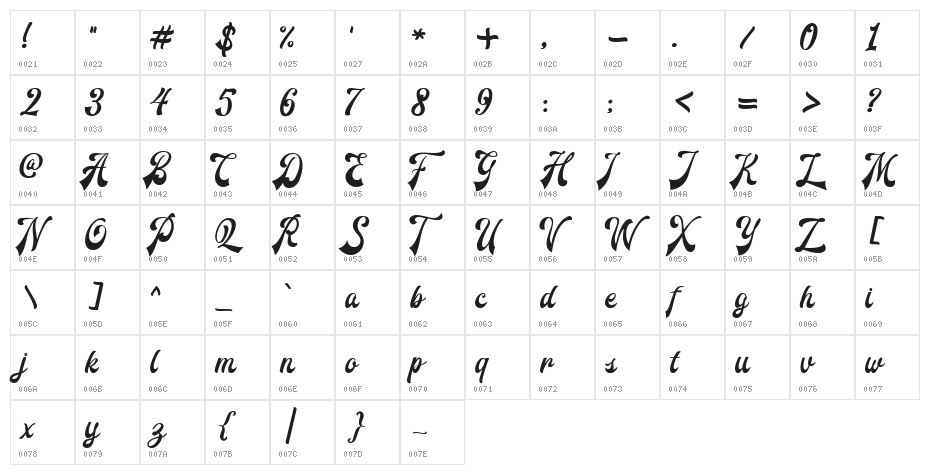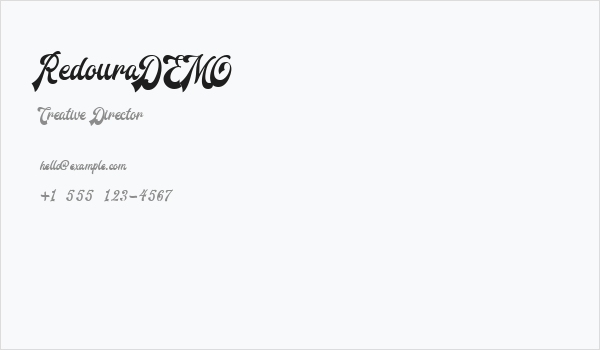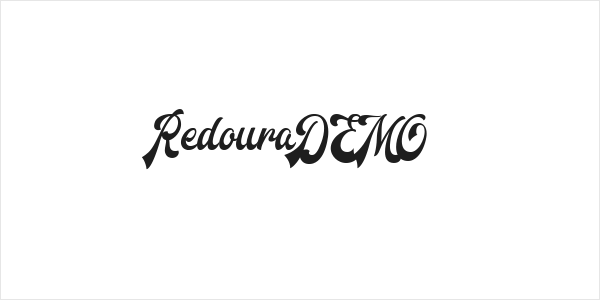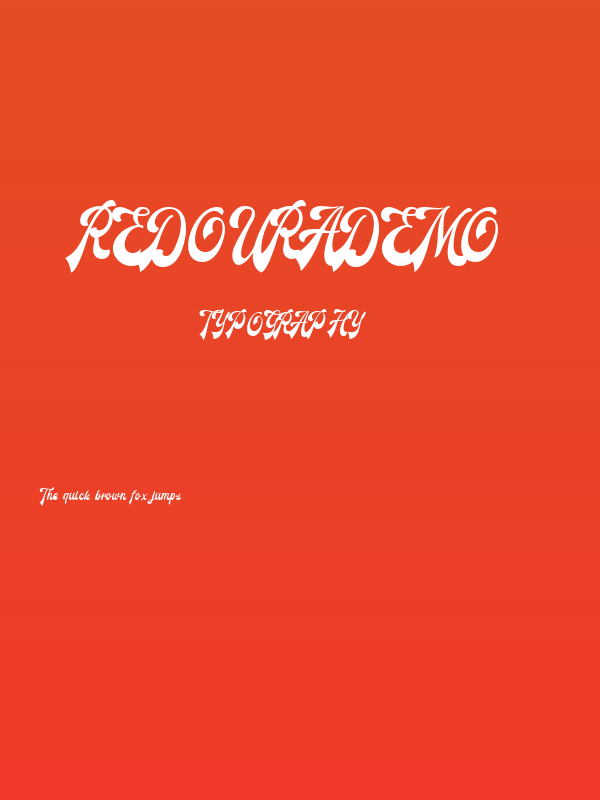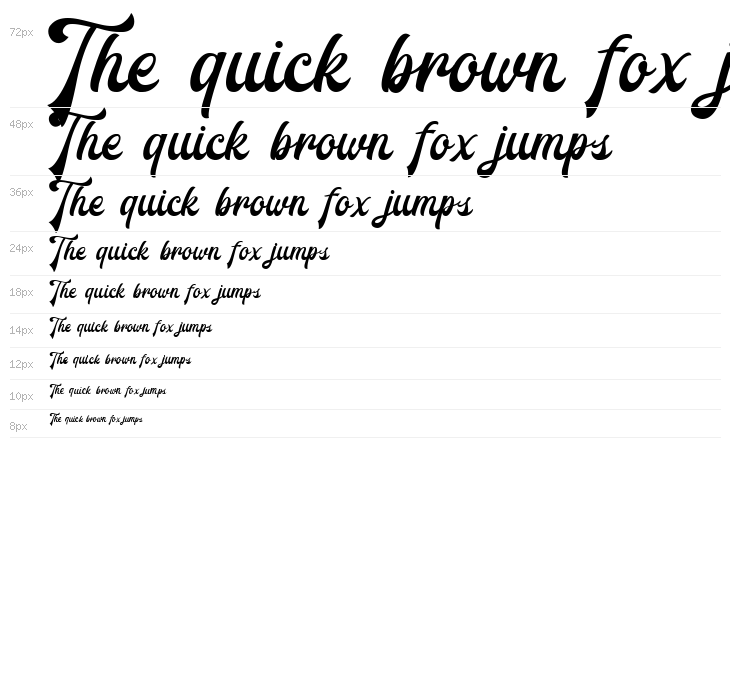
RedouraDEMO Font
RedouraDEMO Description
This font exudes a bold and dynamic presence with its script-like, flowing characters. The uppercase letters are particularly striking, featuring thick, sweeping strokes that convey a sense of movement and elegance. The lowercase letters maintain this fluidity, offering a harmonious balance between the boldness of the uppercase and the subtlety of the lowercase. The numerals and special characters are equally expressive, ensuring consistency across all glyphs. This font's high contrast in stroke thickness adds to its dramatic flair, making it ideal for attention-grabbing designs. Its overall style is reminiscent of vintage calligraphy, yet it maintains a modern appeal through its clean lines and structured form.
| Overall Style | Vintage, Modern |
| Proposed Projects | Ideal for branding, logo design, headlines, and invitations where a touch of elegance and boldness is desired. |